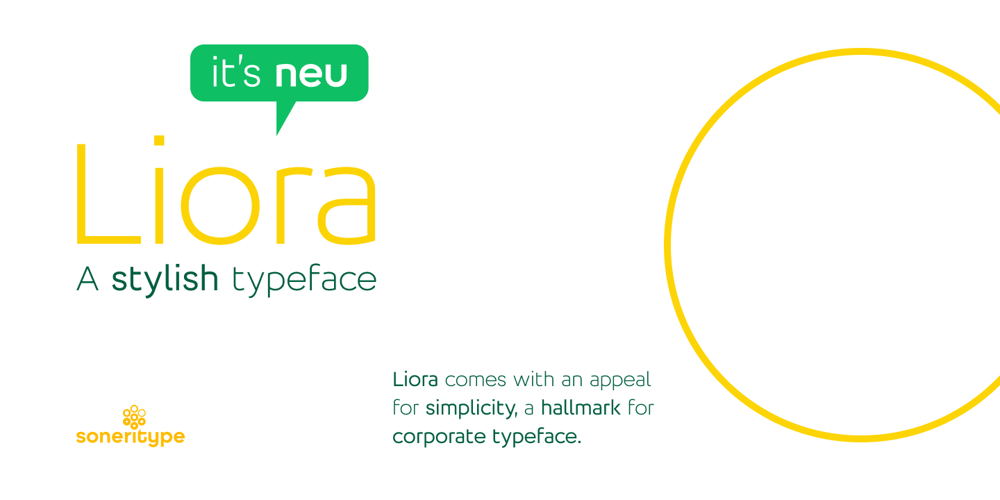
Liora
Liora font
Liora Font Family was designed by Aakash Soneri and published by Soneri Type. Liora contains 7 styles and family package options. Liora comes with an appeal for simplicity which is the hallmark of corporate typeface. This quality convey notions of authority, credibility, and neutrality that reinforce the image of the corporate environment. It has a optical uniform stroke, which result in formal simplicity and neutrality that helps communicate the corporate sense professionalism. This quality makes the type more desirable for branding and corporate identity.Style is embedded with simplicity in letters to deliver a simple yet stylish, neutral yet distinct visual features, all enabling it to be a perfect choice for a strong corporate identity or branding element.Liora type family is designed by Akash Souneri.